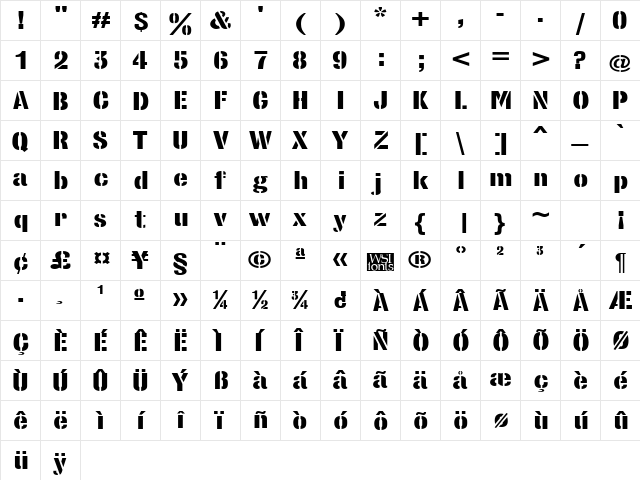
StencilSansXB Regular
Design Context for StencilSansXB Typeface
StencilSansXB borrows the utilitarian aesthetic of stencil lettering, with its characteristic cutaways and no-frills construction lending an industrial edge.
Ideal for industrial branding, streetwear, military-adjacent aesthetics, and urban signage projects.
Pro Tip: Pair StencilSansXB with raw, utilitarian design elements — exposed concrete textures, flat colour, and minimal ornamentation suit it well.